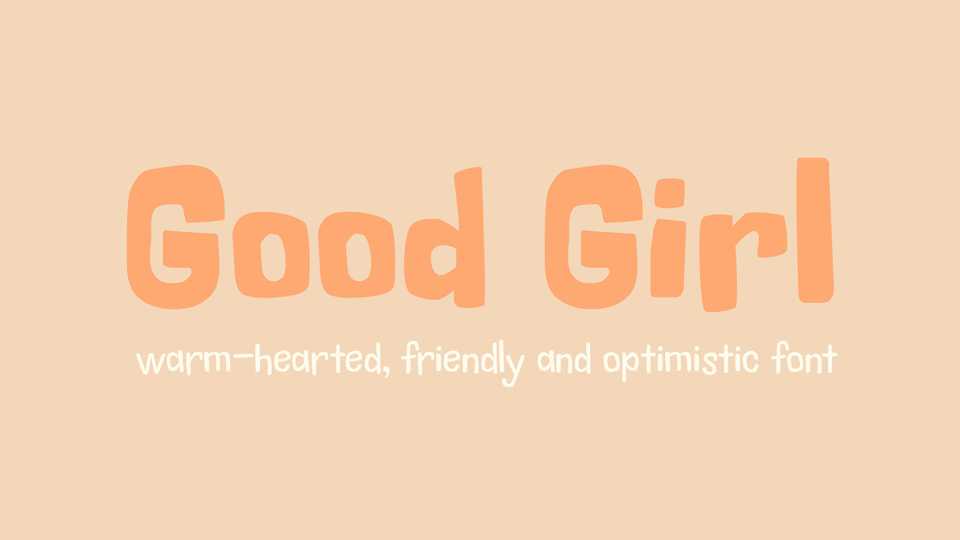
Download Good Girl font family, a warm-hearted, friendly and optimistic typeface in Regular and Light weights inspired the hand lettering in vintage publications.
Designer: Catherine Bell